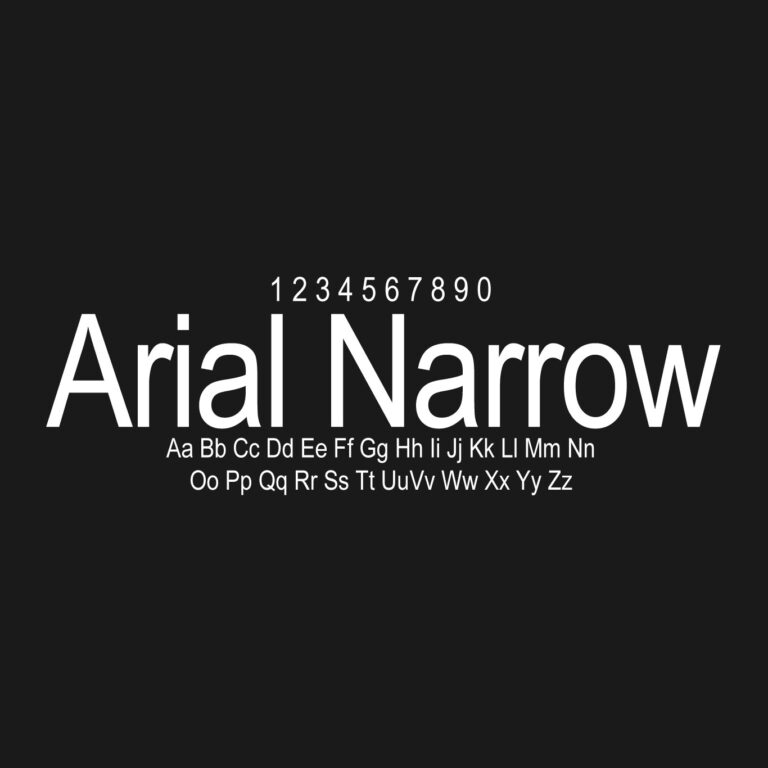
Arial Narrow is a condensed version of the Arial typeface, designed for layouts where readable sans-serif typography needs to fit into limited horizontal space. It has a familiar neutral structure, narrow proportions and practical readability, making it useful for documents, presentations, posters, tables, labels, business materials, editorial layouts and compact design projects.
The History of Arial Narrow
Arial was originally designed in 1982 by Robin Nicholas at Monotype, created as a practical sans-serif for the low-resolution laser printers of the era. Nicholas later expanded the design into a full family alongside Patricia Saunders of the Monotype drawing office, which grew to include Arial Narrow, Arial Black, and Arial Rounded MT Bold alongside the original weight. Arial Narrow specifically was built to solve a common layout problem: fitting readable text into narrow columns, tables, and labels without switching to a different, less familiar typeface.
The Arial family’s reach expanded dramatically in 1992, when Microsoft licensed it as one of the core fonts bundled with Windows 3.1. That decision made Arial and Arial Narrow a default presence on millions of computers for decades, cementing their place as some of the most recognized and widely used typefaces in the world, particularly in office documents, spreadsheets, and business presentations.
Design Characteristics
Arial Narrow carries more humanist warmth than many purely industrial sans-serifs, with softer, fuller curves and terminal strokes cut on a diagonal rather than a hard horizontal or vertical — a small detail that keeps the letterforms from feeling too mechanical. Its condensed width preserves this same structure while narrowing horizontal space, making it a practical choice whenever a design needs to say more in less room without switching to a visually unrelated typeface.
Font Name: Arial Narrow
Font Type: Sans Serif
Category: Condensed Sans Serif / System Font
Visual Style: Narrow, clean, neutral, readable, practical
Best For: Documents, presentations, tables, labels, posters, business layouts and compact typography
Designer: Robin Nicholas and Patricia Saunders
Foundry: Monotype
Released: 1982 (bundled with Windows starting 1992)
Similar Modern Alternatives
Since Arial Narrow carries commercial licensing restrictions, many designers look for freely licensed, web-safe alternatives that offer a similar narrow, practical sans-serif structure. These are strong options, all available under open licenses:
Archivo Condensed — A grotesque-style narrow sans-serif built specifically for tables, labels, and dense layouts, closely matching Arial Narrow’s original use case.
Oswald — A more stylized, higher-contrast condensed sans, useful when a design wants extra visual character rather than a purely neutral system-font look.
Roboto Condensed — A clean, neutral condensed sans-serif with excellent screen legibility, widely used across web and app interfaces as a direct, freely licensed substitute.
PT Sans Narrow — A humanist narrow sans with slightly warmer, rounder letterforms than Arial Narrow, well suited for both print and digital use.
Barlow Condensed — A soft, rounded condensed sans with a more contemporary, approachable feel, popular in modern web and app design.
These alternatives are all fully open-licensed, meaning they can be used in commercial projects without the trademark and licensing concerns that come with Arial Narrow.